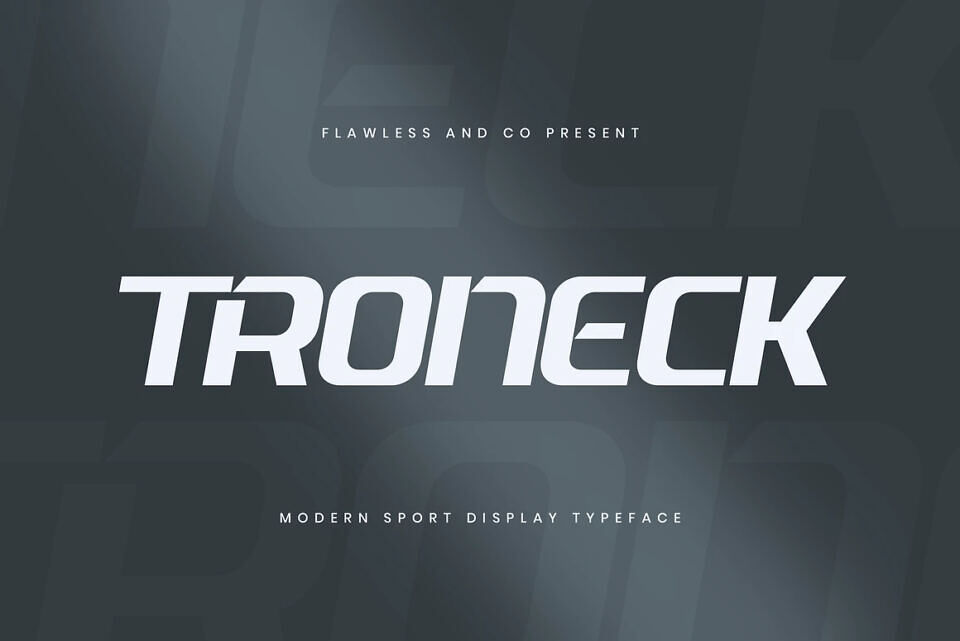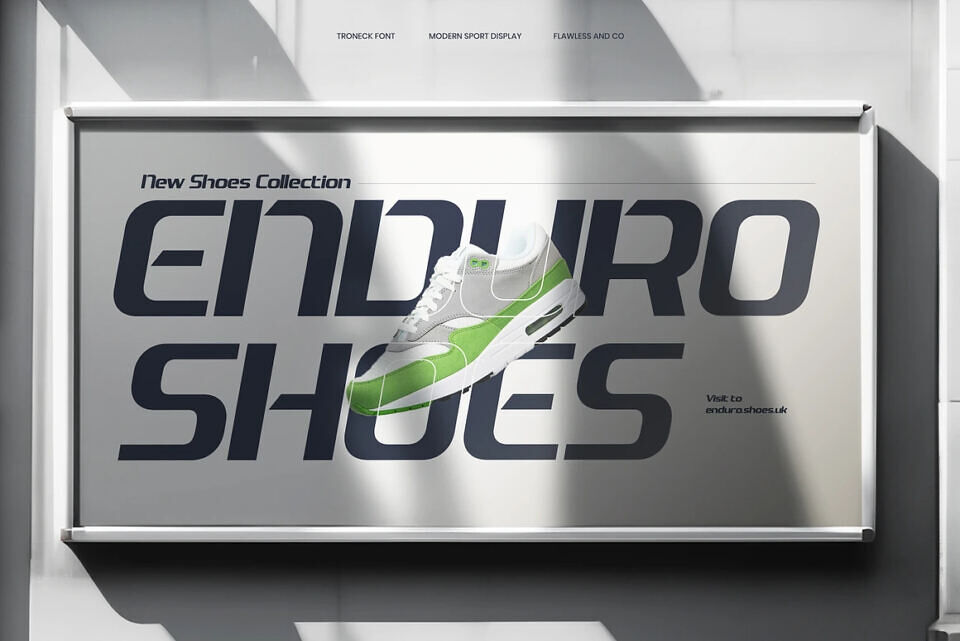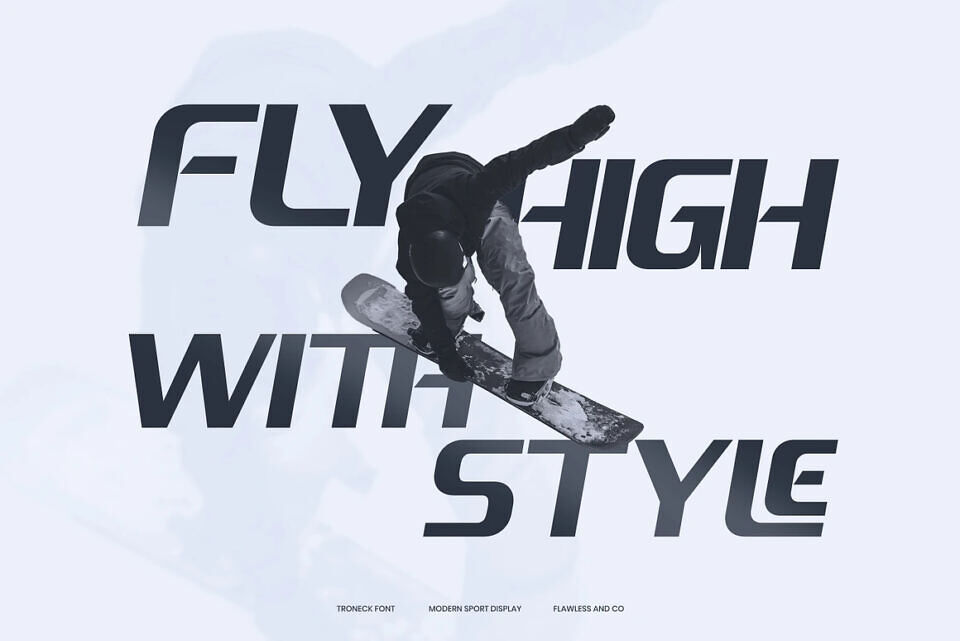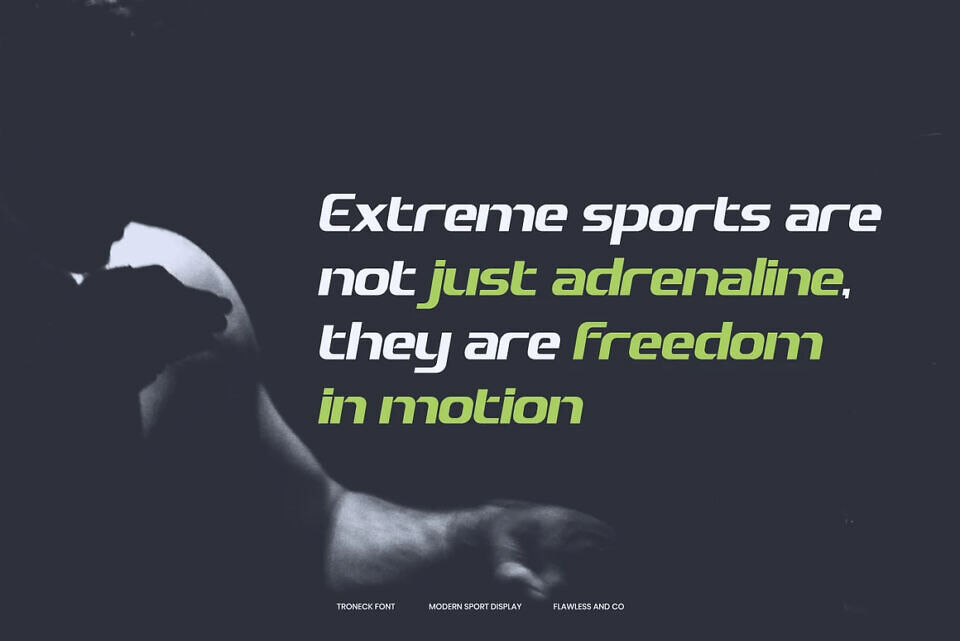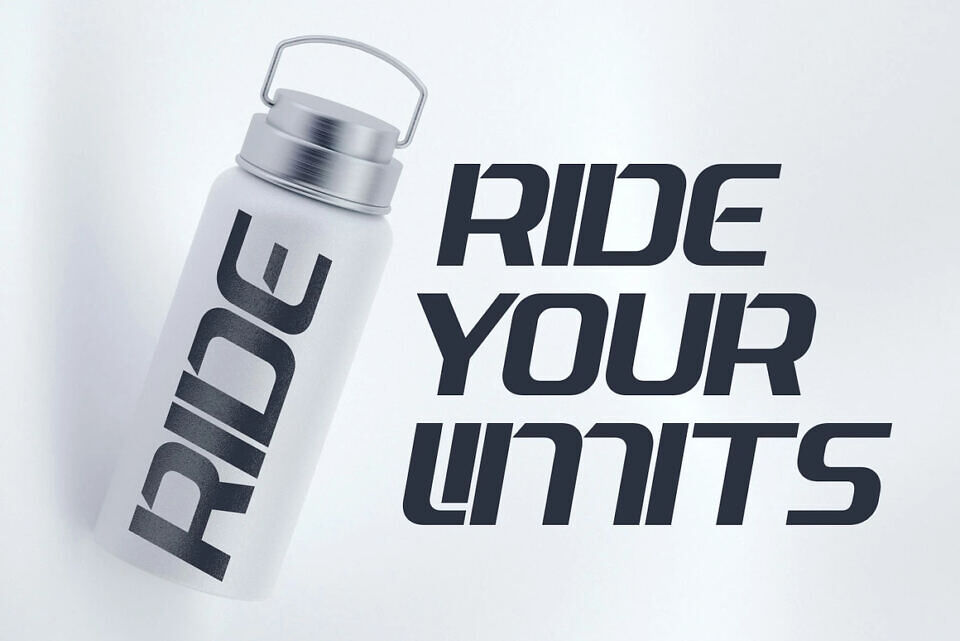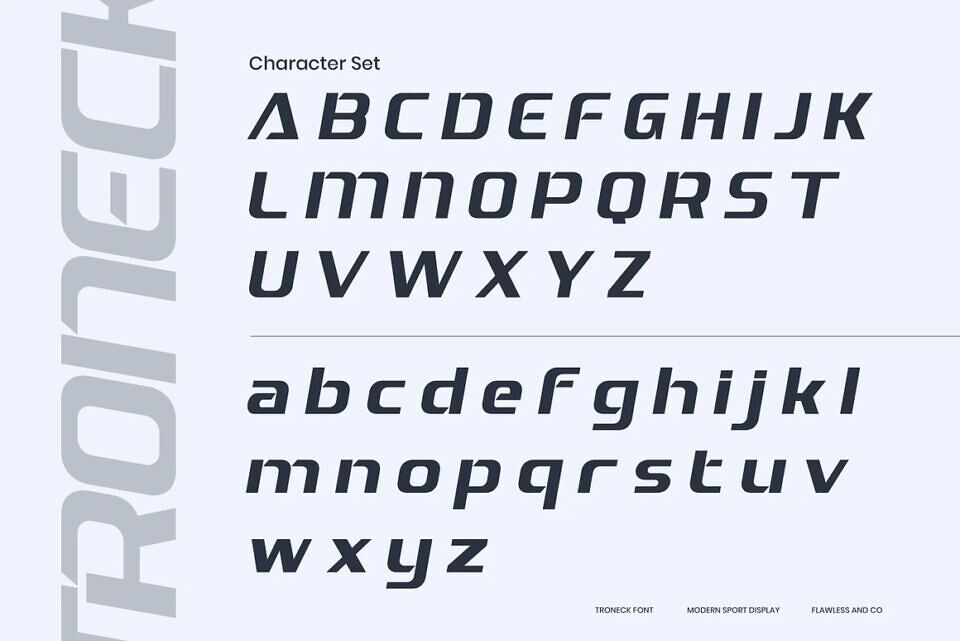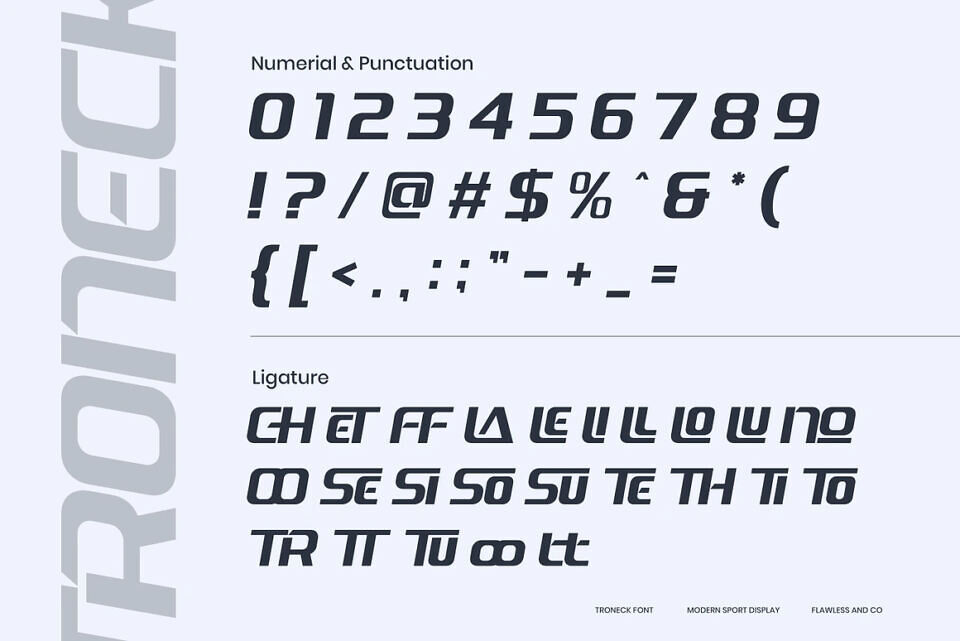
Troneck Font
Troneck Font is a bold and energetic modern sport display typeface built to convey speed, power, and determination. Featuring sharp edges, futuristic curves, and a dynamic structure, it perfectly reflects the spirit of athletic branding. Ideal for sports logos, headlines, posters, and digital media, Troneck delivers a strong visual impact that commands attention.
Its versatility ensures seamless use across print and screen, making it a reliable choice for bold branding and creative projects. With Troneck, your designs achieve a confident, competitive, and lasting impression.